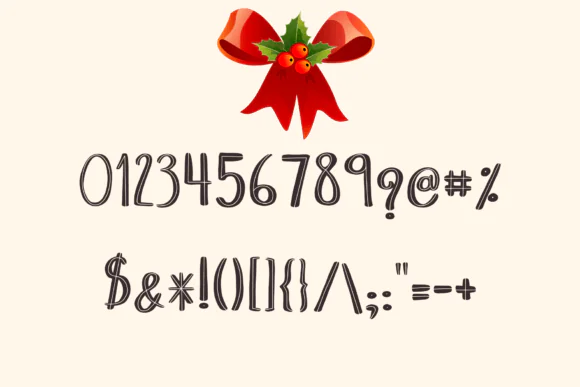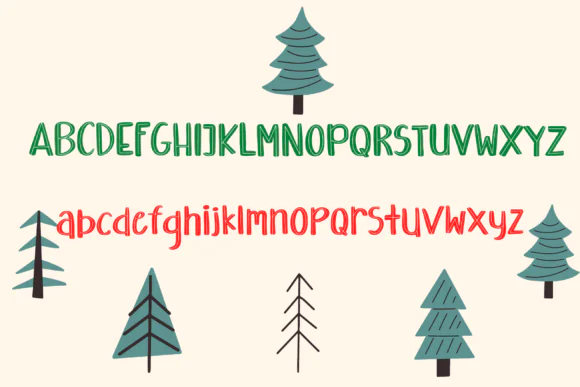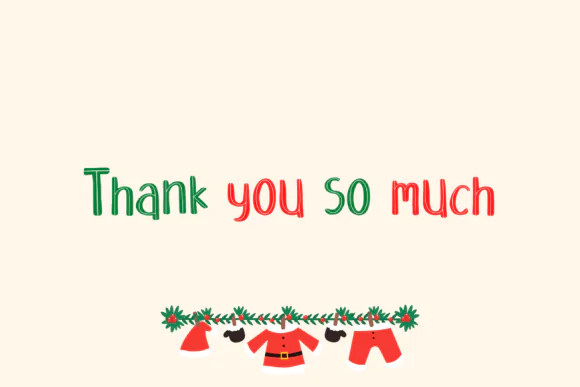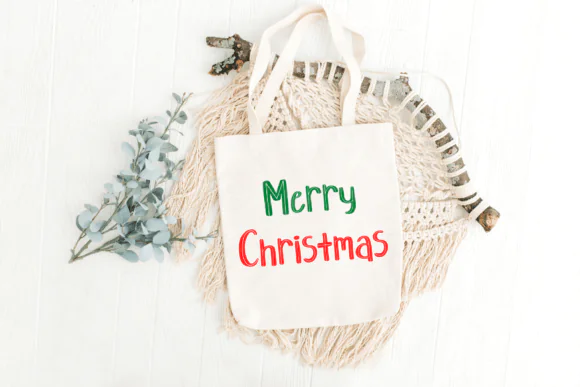
Christmas Team Font | Fun Quirky Handwritten Holiday Font for Crafts, Greeting Cards, Digital Designs, SVG Projects & Festive Branding
Bring cheerful holiday personality to your creative projects with Christmas Team Font, a fun and quirky handwritten font designed for festive crafts, digital artwork, printable designs, greeting cards, social media graphics, invitations, and seasonal branding.
This playful Christmas-style font is perfect for designers, crafters, small business owners, and digital creators who want to add a warm, handmade, and joyful look to their holiday projects. Whether you are creating Christmas cards, product labels, holiday posters, sublimation designs, stickers, t-shirt graphics, mugs, wall art, or social media posts, this font gives your design a cute and festive handwritten feel.
• Christmas greeting cards
• Holiday invitations
• T-shirt and mug designs
• Sublimation projects
• Stickers and labels
• Digital scrapbooking
• Printable wall art
• Craft projects
• Branding and packaging
• Festive posters and banners
• Cricut and Silhouette projects
• Fun handwritten style
• Quirky and festive personality
• Great for holiday-themed designs
• Easy to use for digital and print projects
• Perfect for both casual and creative Christmas artwork
This font is a great choice for anyone looking to create charming, joyful, and eye-catching Christmas designs with a handmade touch.